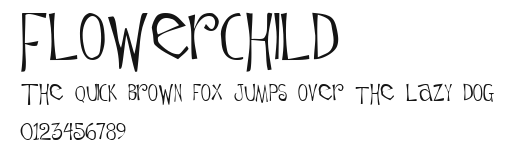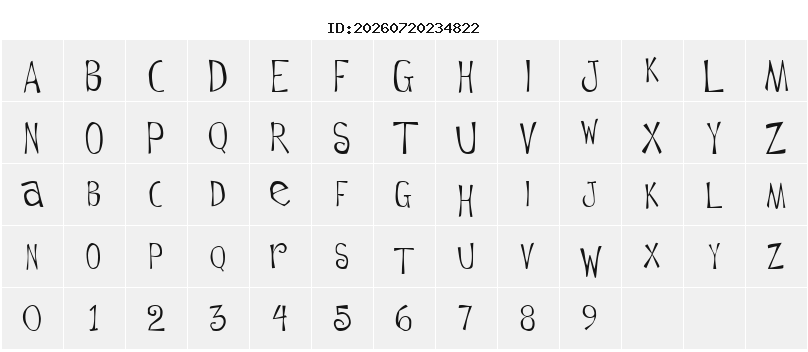
• Font Name: Flowerchild
• Font Style: Plain
• Full Font Name: Flowerchild Plain
• PostScript Name: Flowerchild Plain
• Character Count: 72
About Flowerchild.ttf
Flowerchild.ttf is a modern, elegant sans-serif font designed for ultimate readability and visual harmony. Perfect for branding, headlines, web design, and print materials.